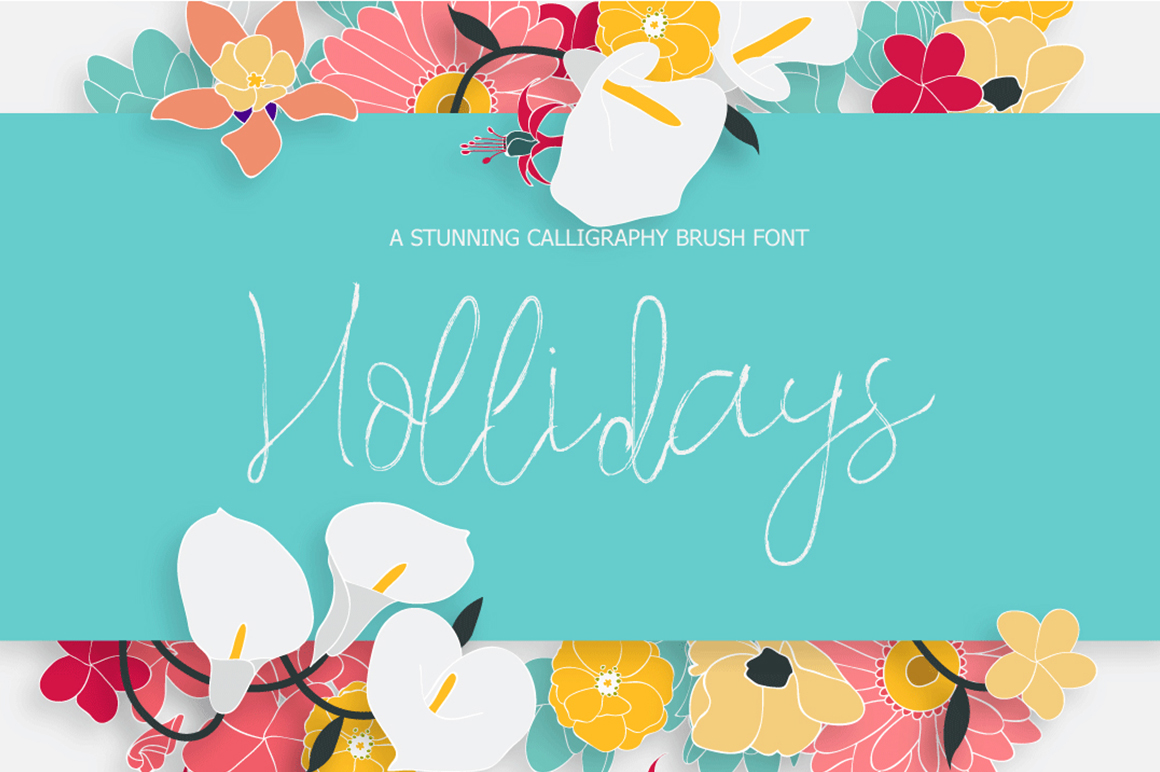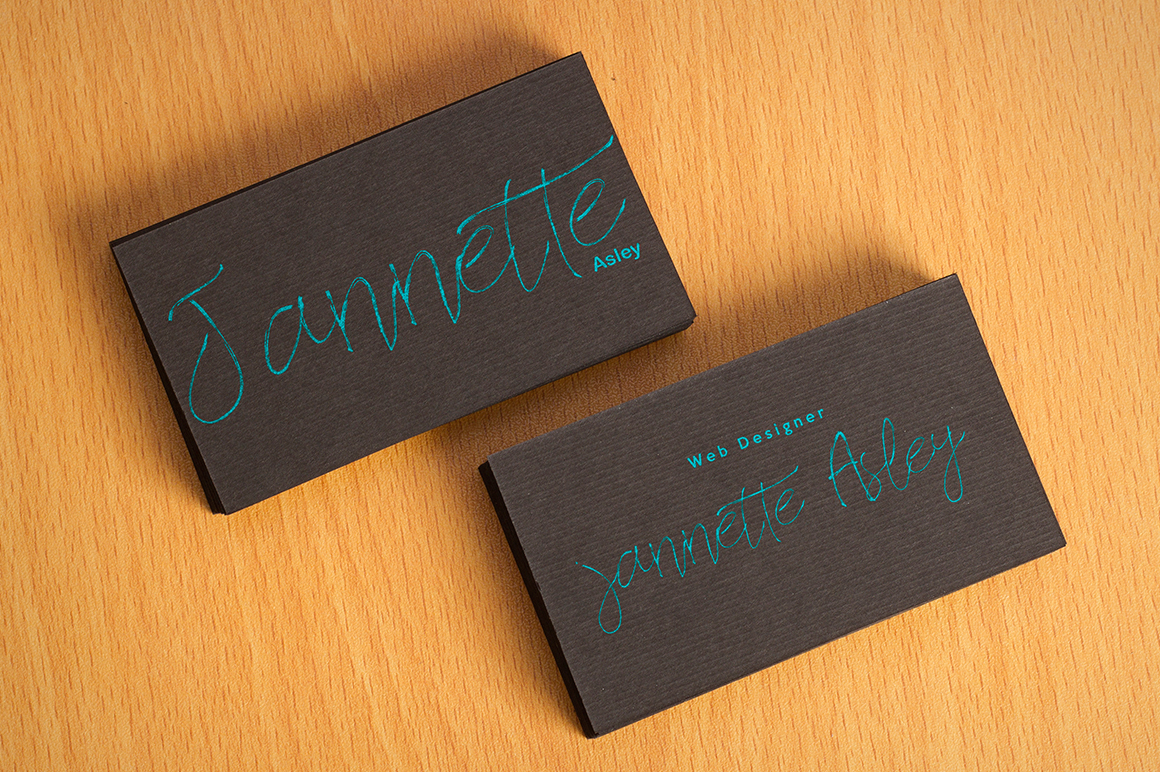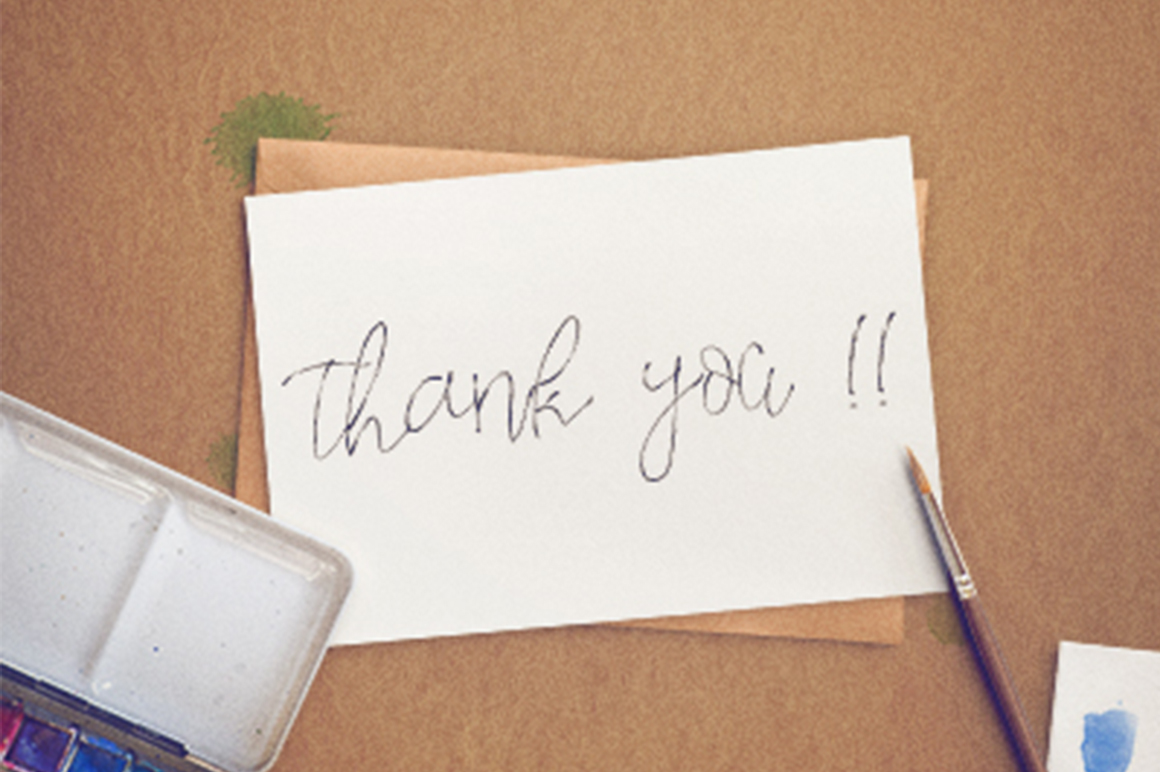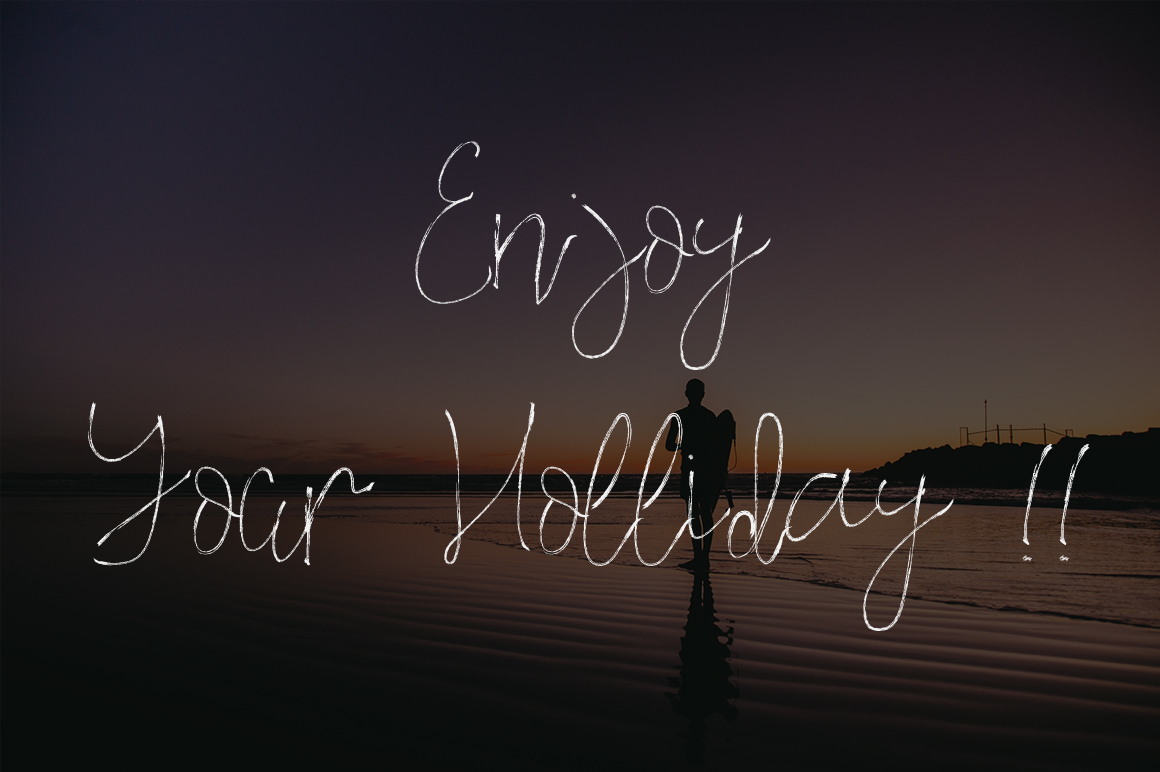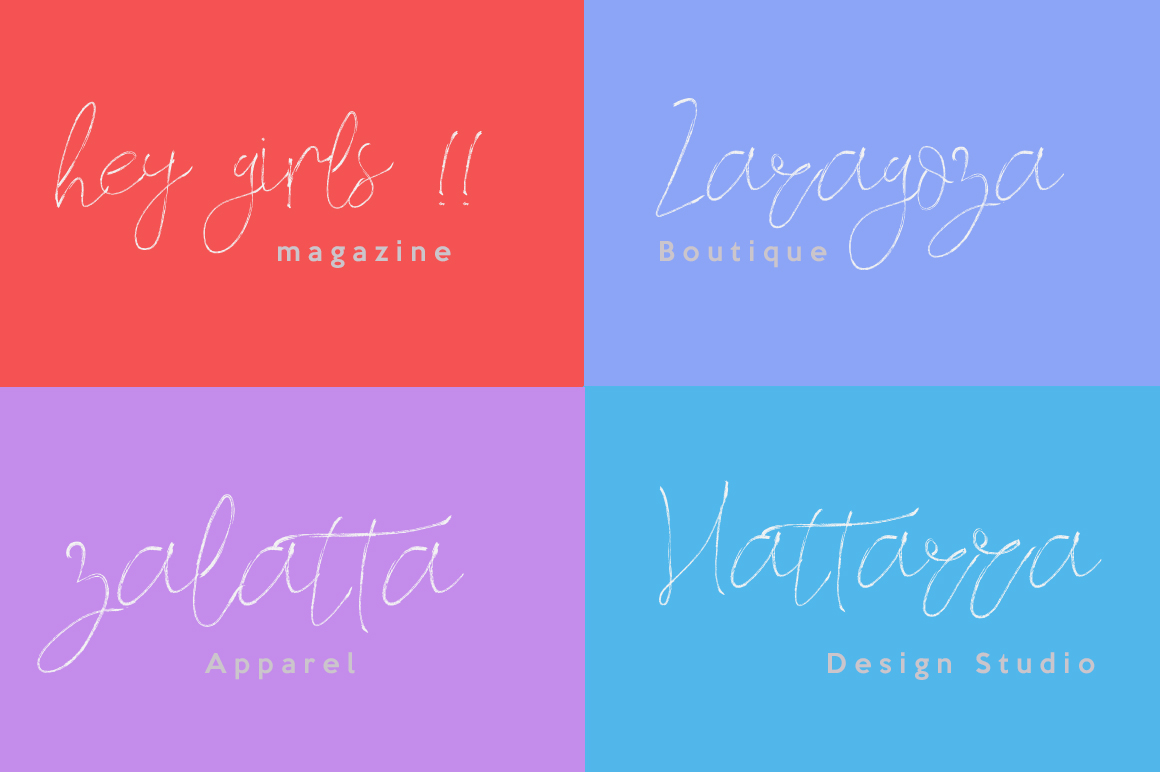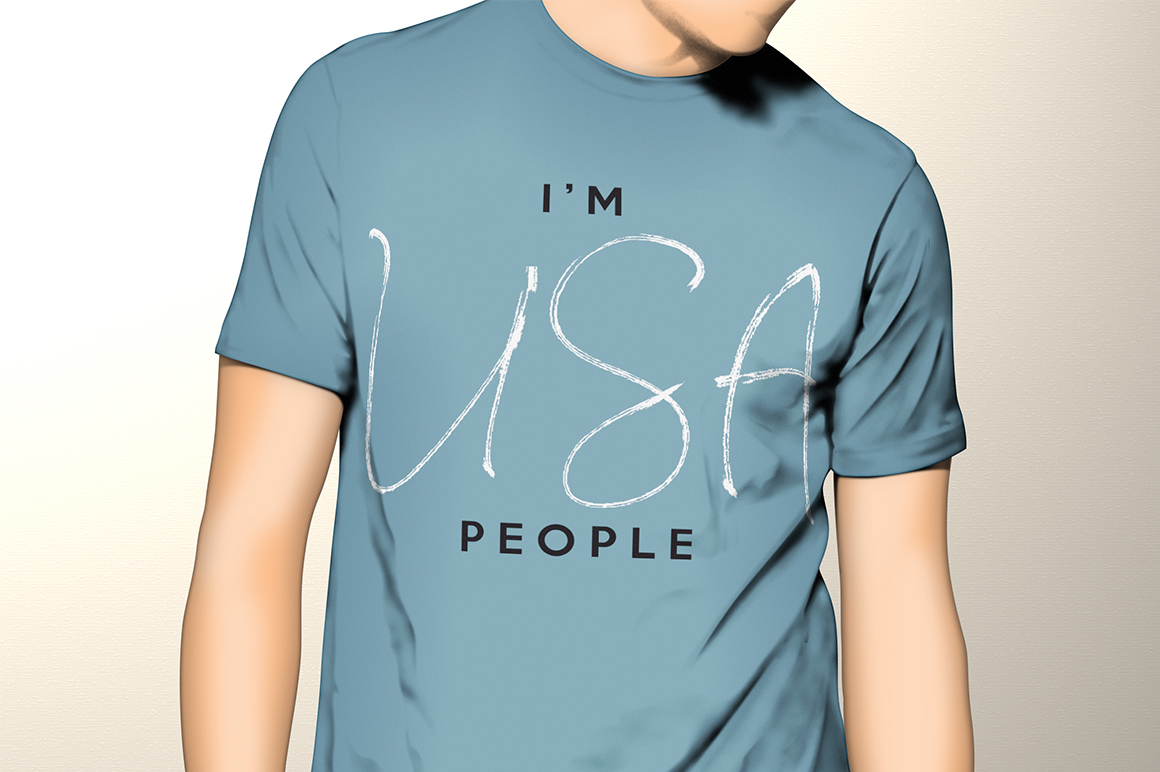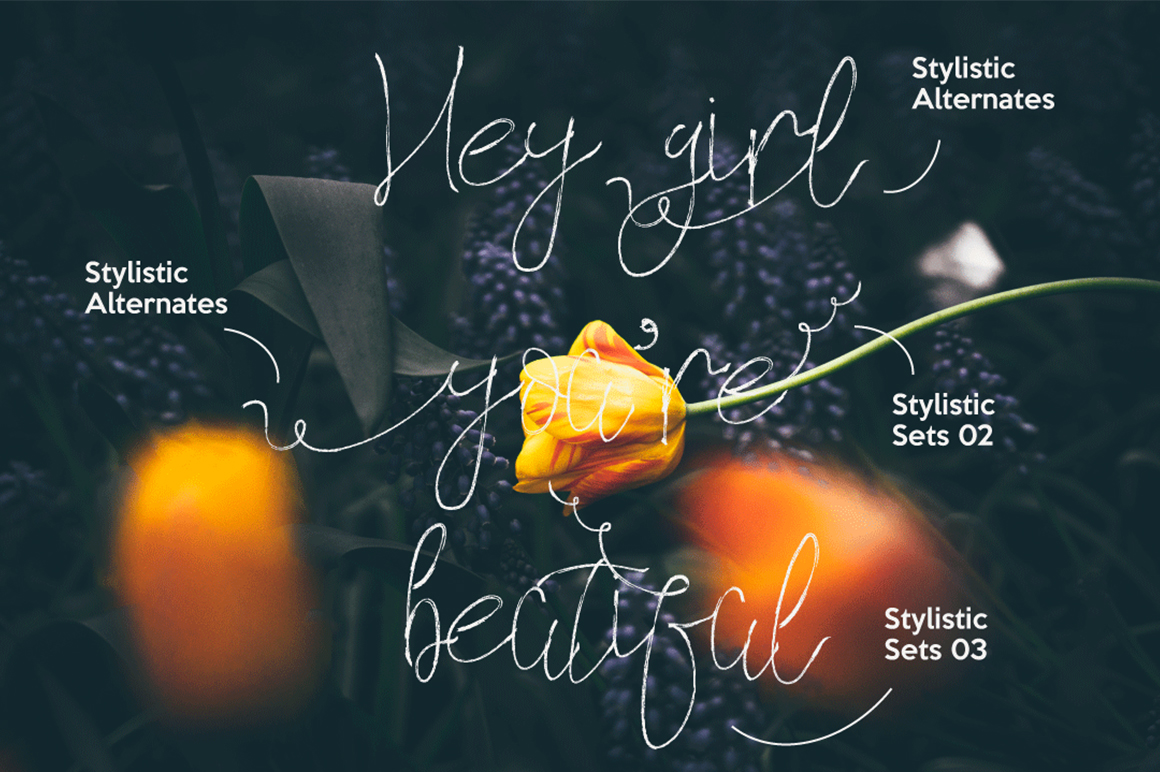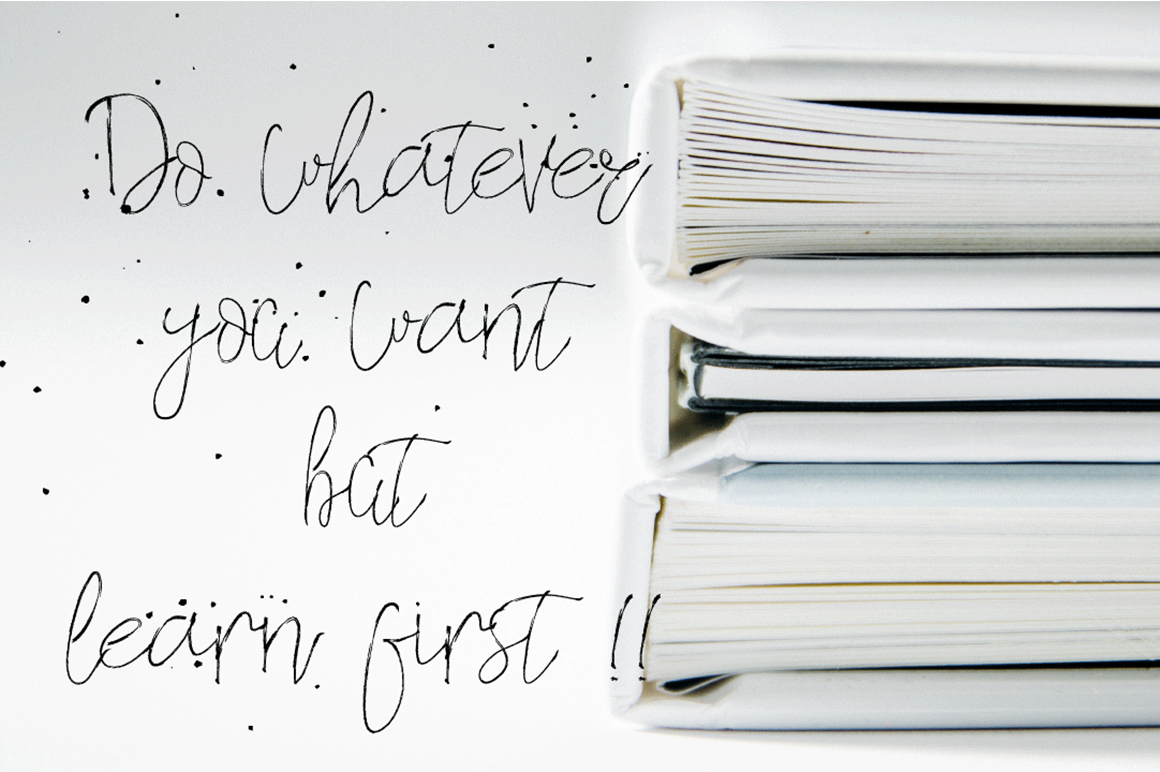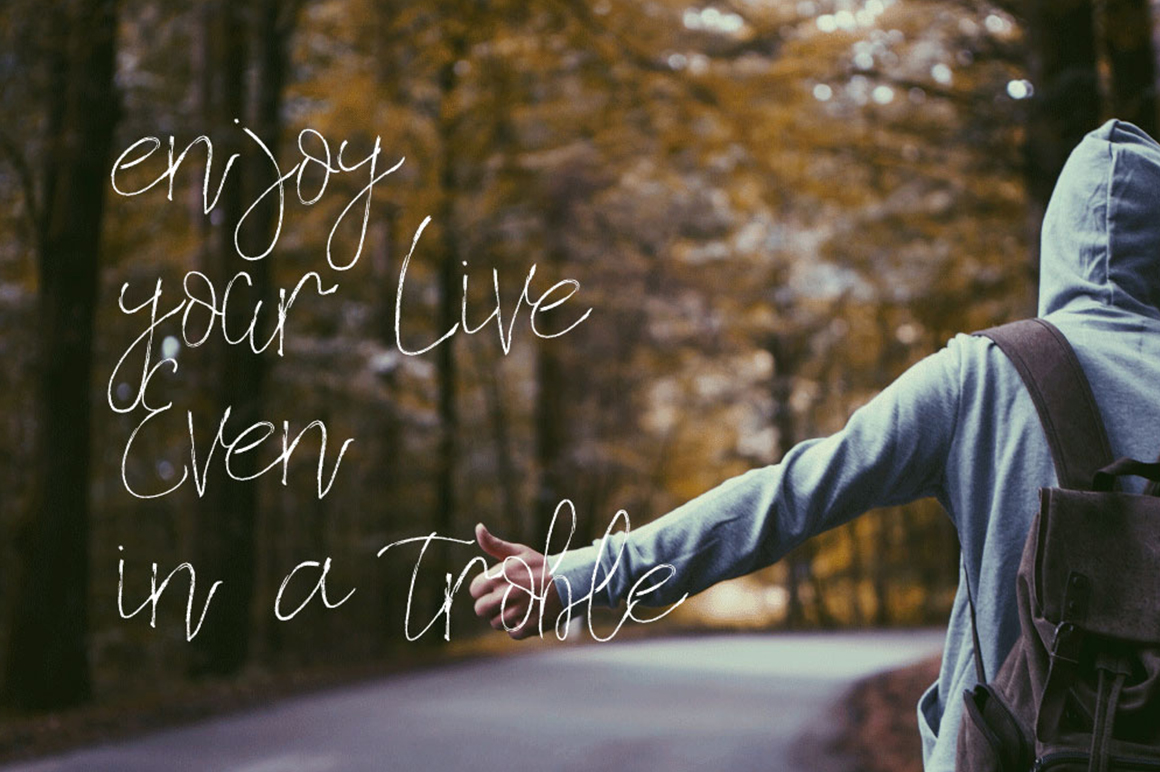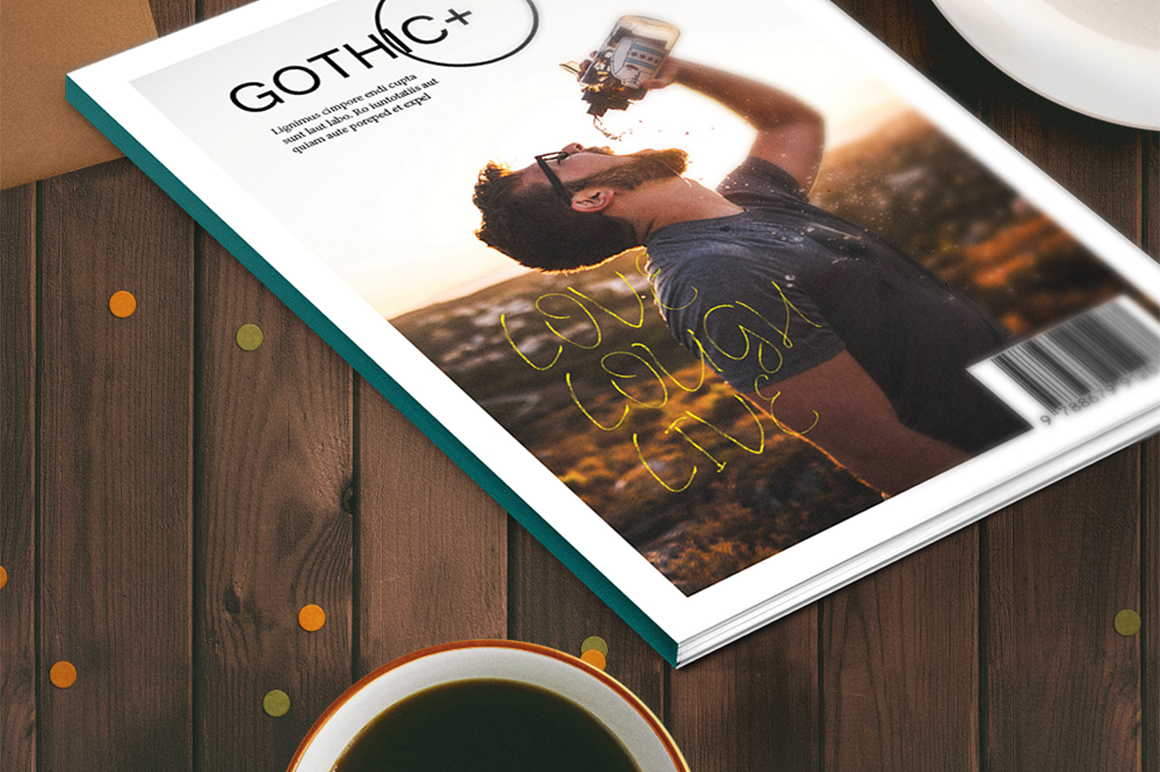
Hollidays Font
About Hollidays Font
Hollidays is a thin handwritten script font.
This font family comes packed with 7 fonts, which is more than enough to keep using this font and come up with unique creations each and every time.